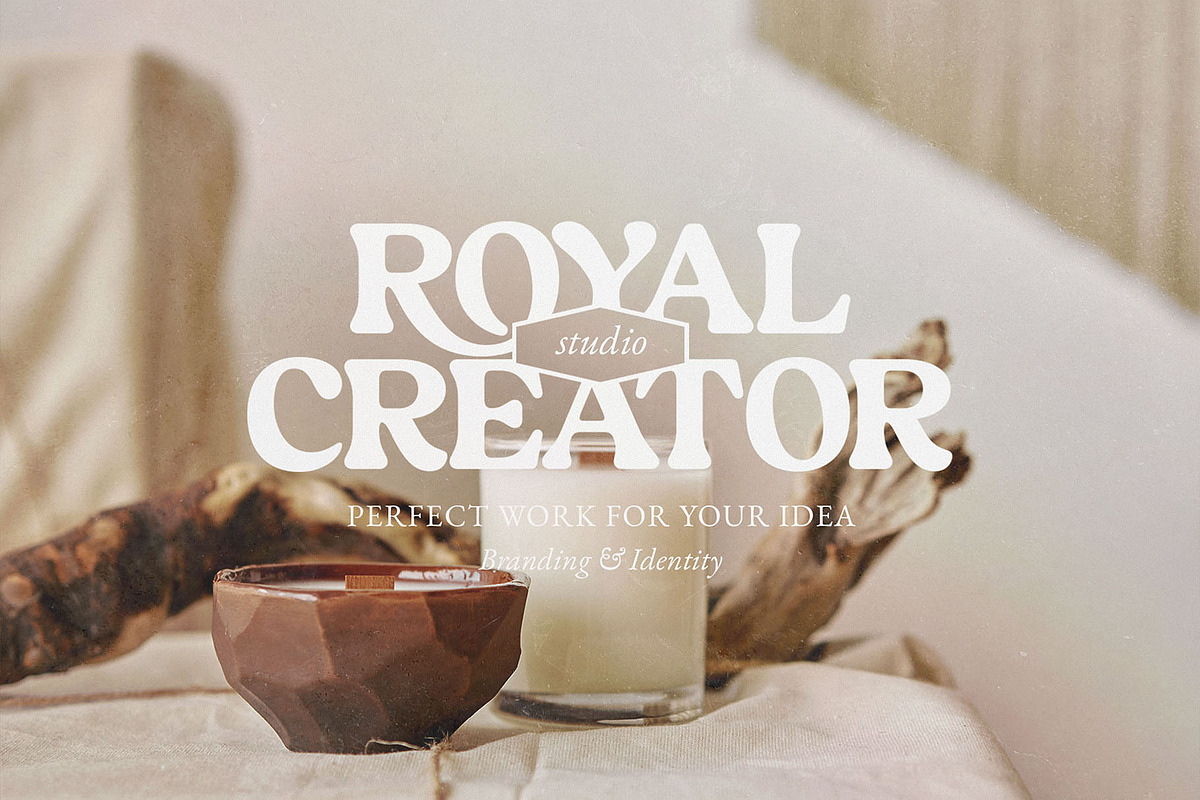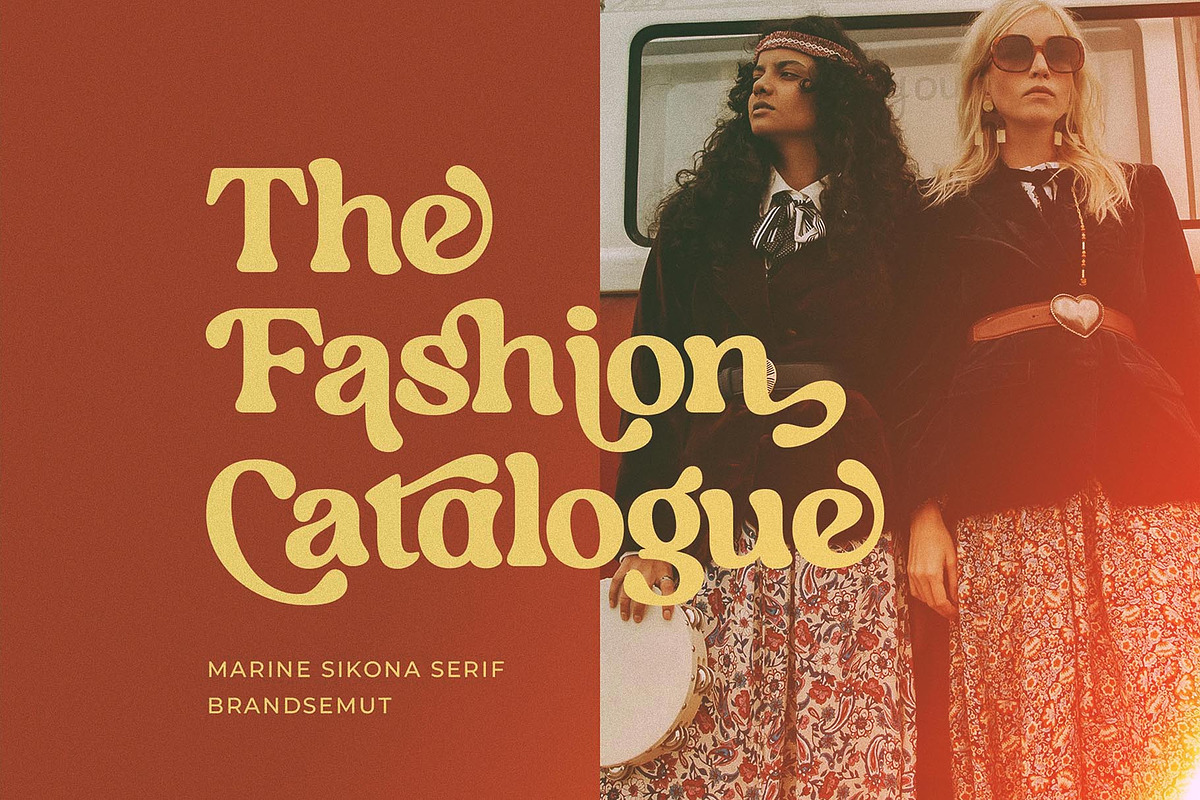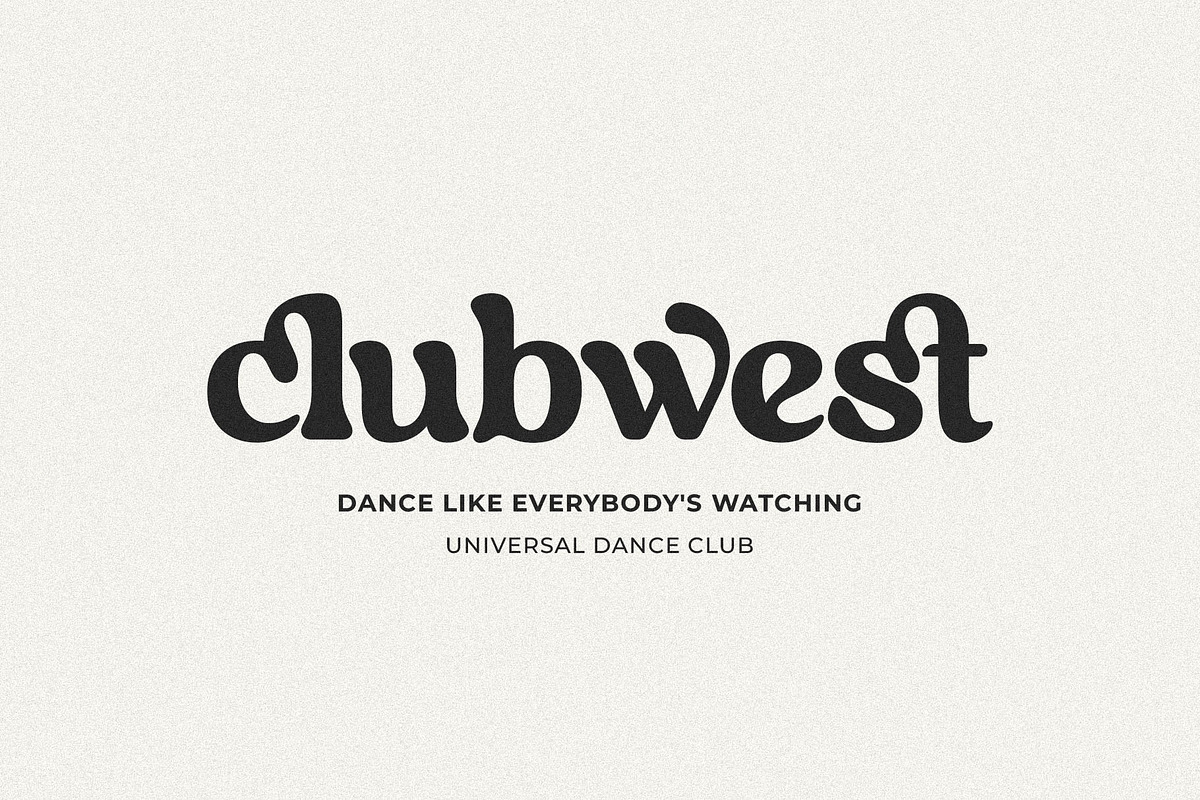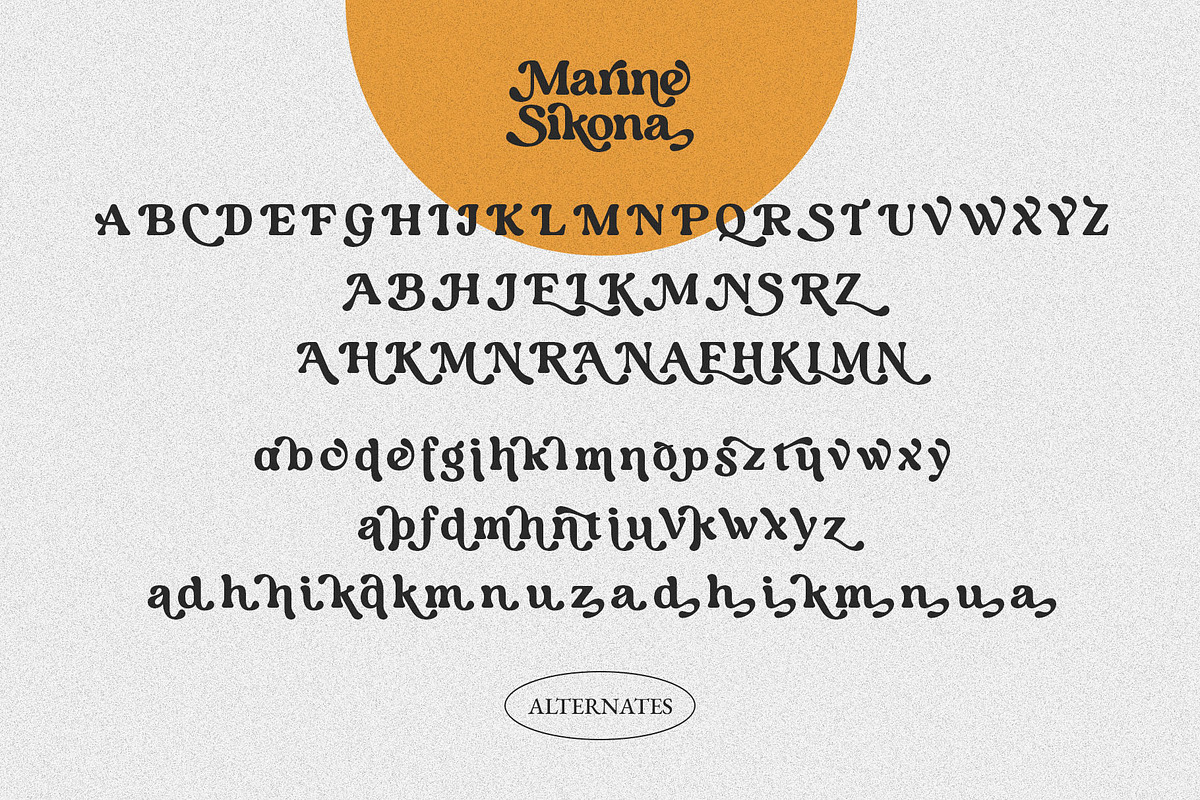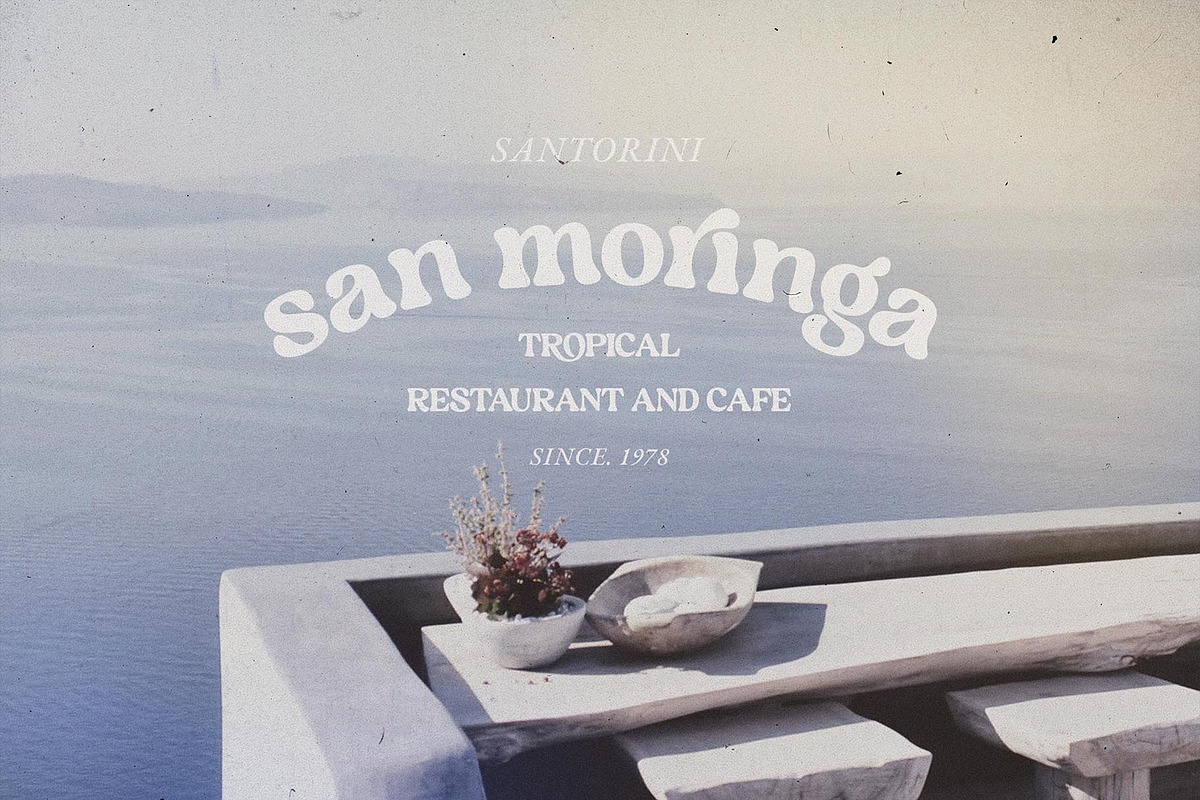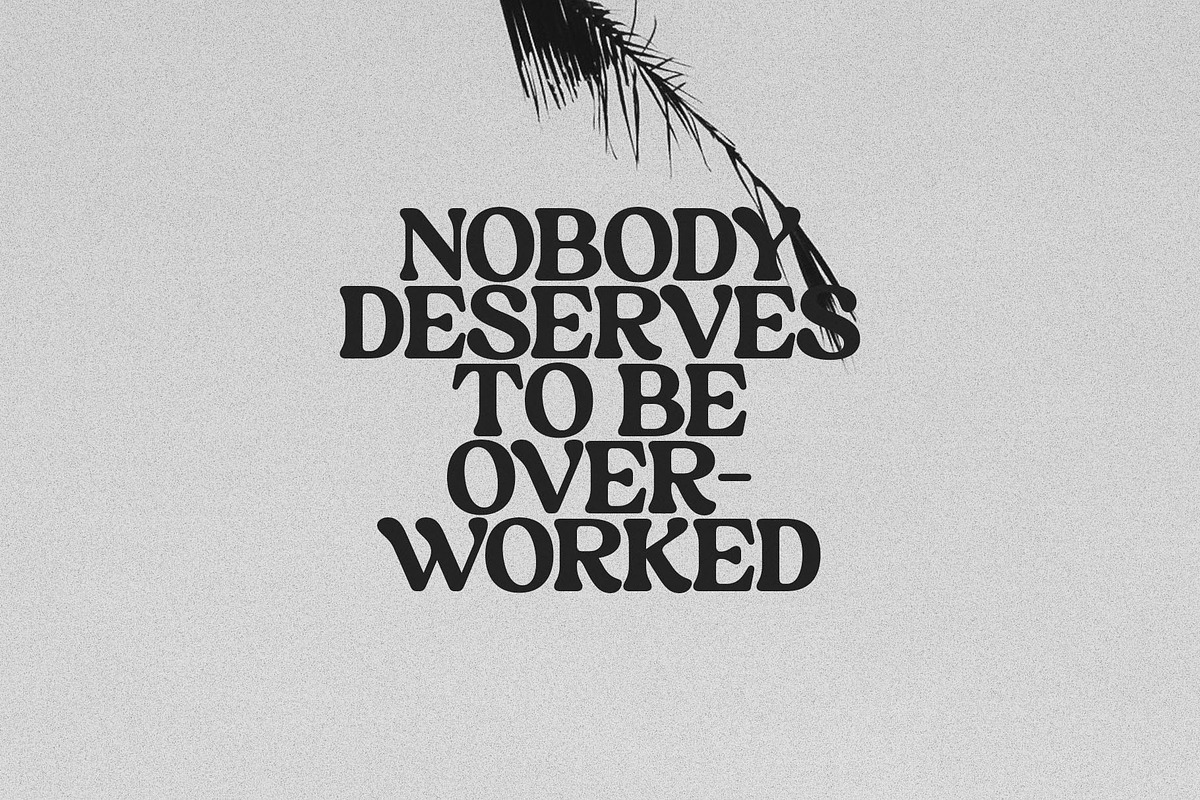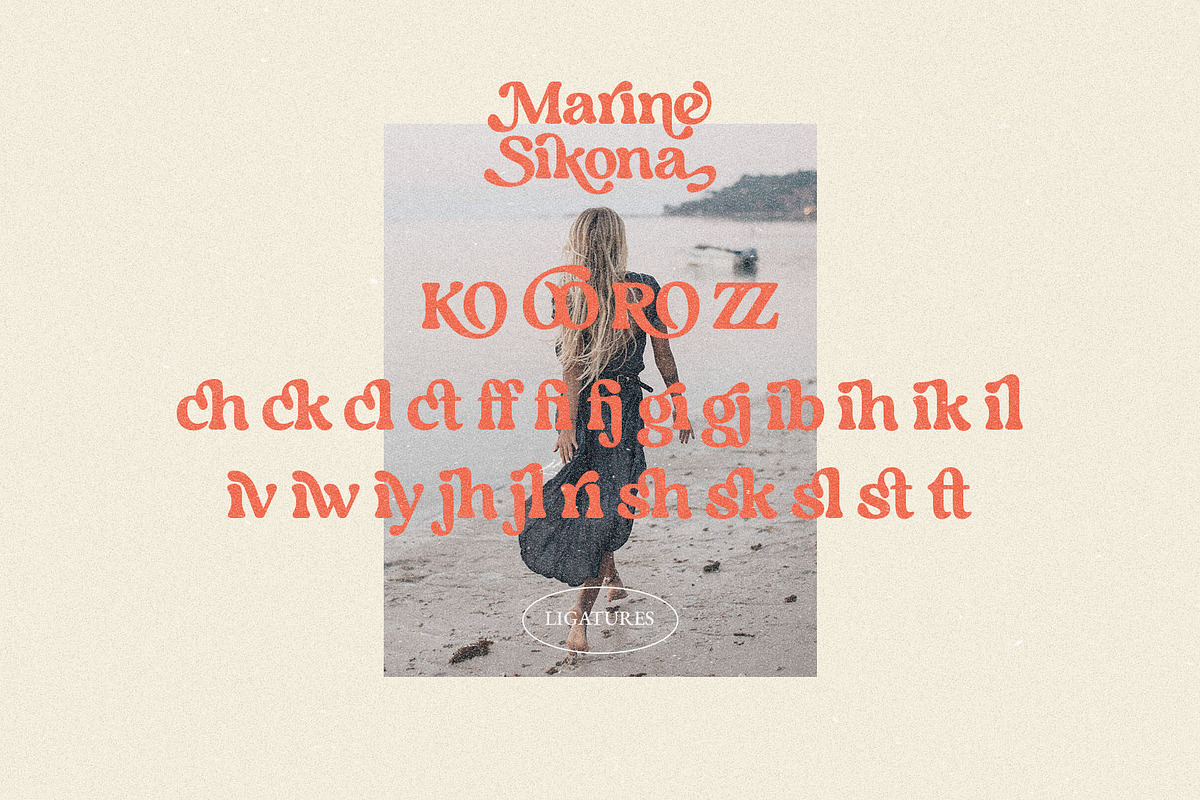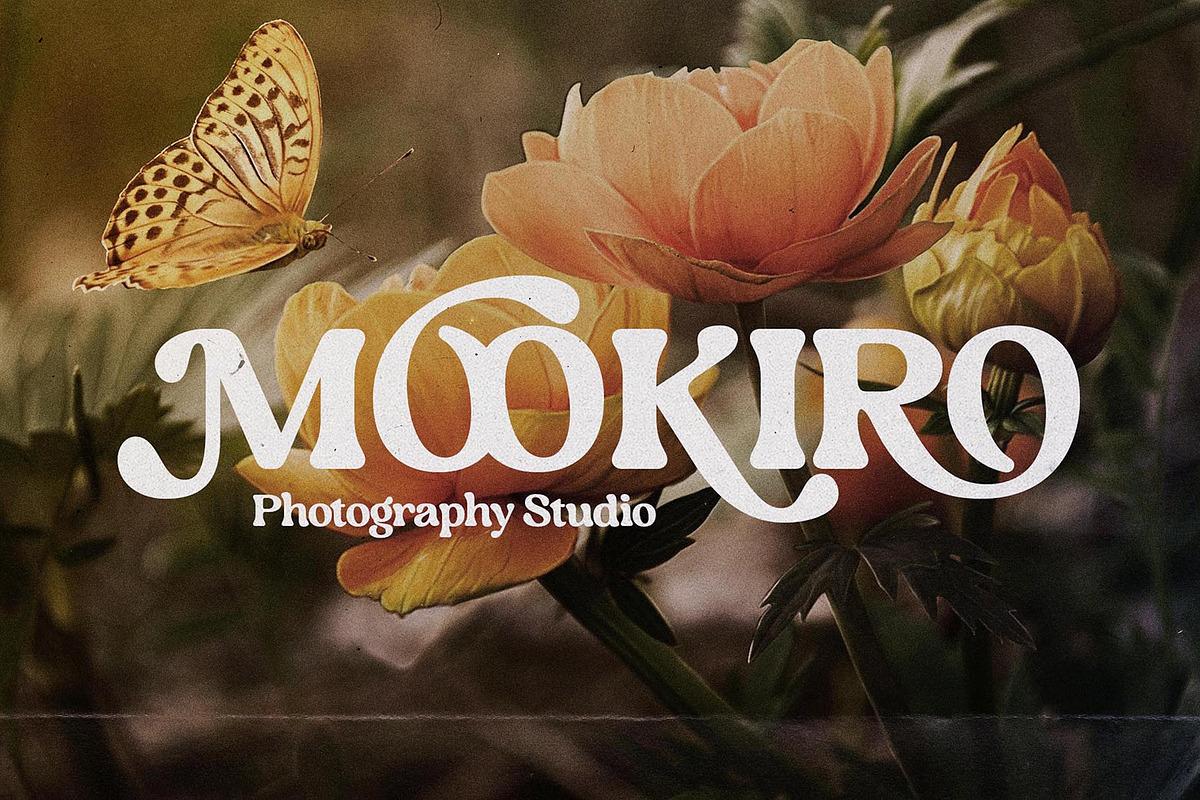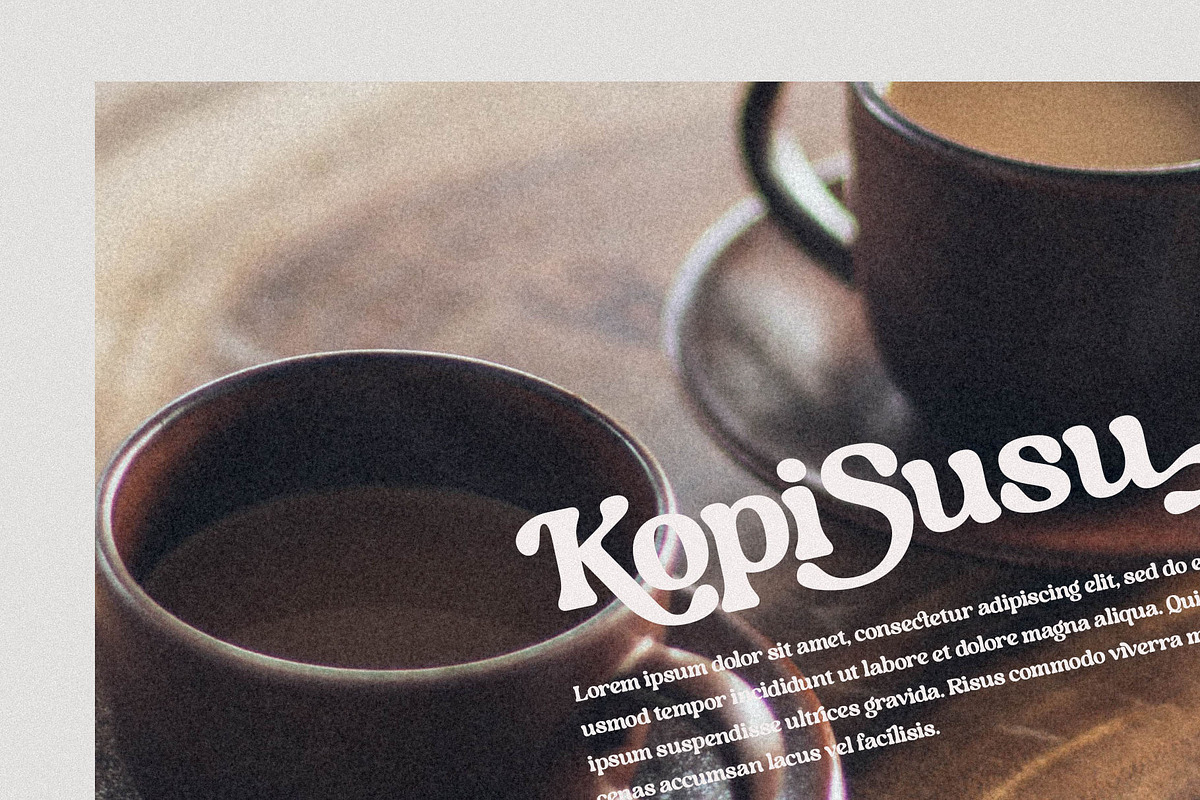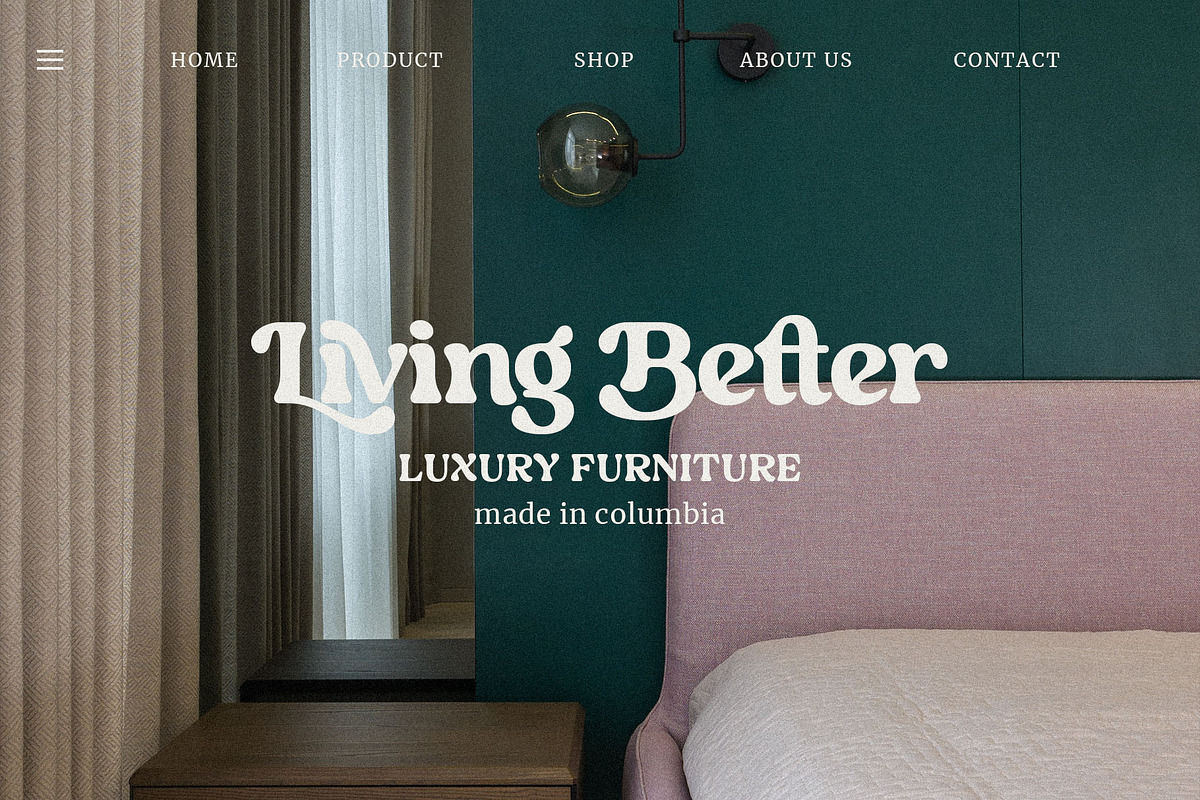
Marine Sikona – Modern Retro Serif
Introducing Marine Sikona Retro Display Serif. Marine Sikona is a retro and modern display serif, best used as a display for headings, logos, branding, magazines, product packaging and invitations. Marine Sikona equipped with Ligature and many Alternates and come with clean lines and smooth curves give any project an extra touch of class.